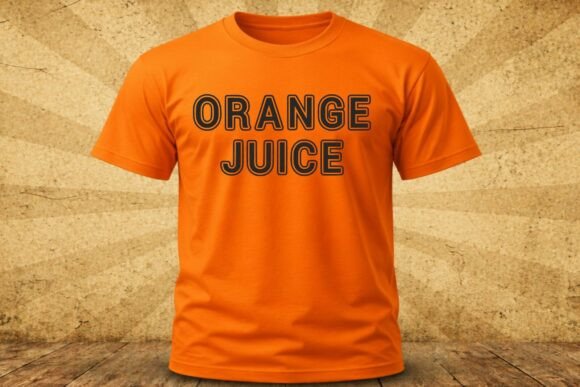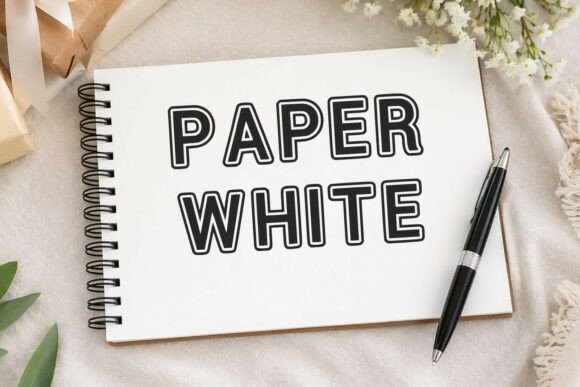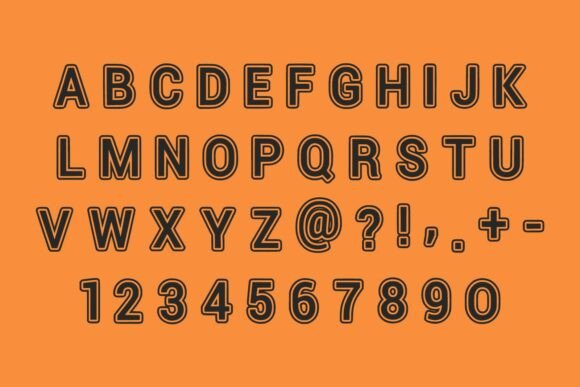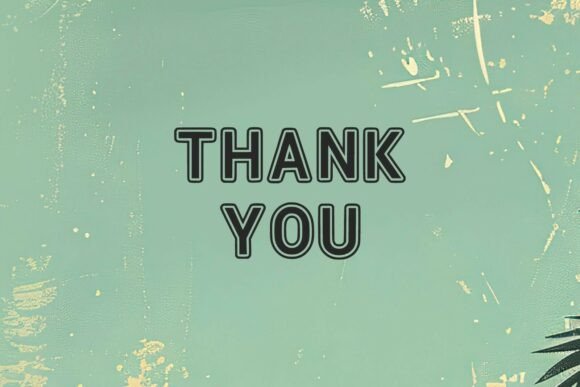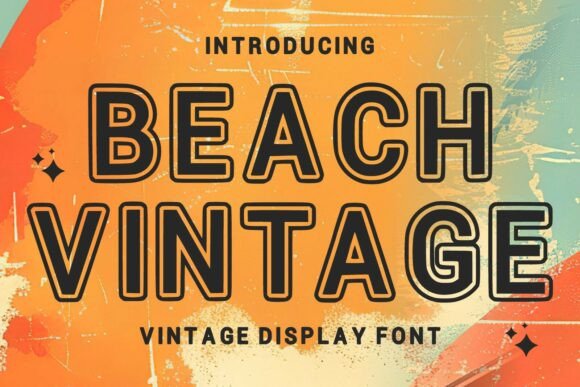
Introducing Beach Vintage Font: Elevate Your Designs with a Retro Twist
Are you looking for a font that adds a touch of nostalgia and sophistication to your designs? Look no further than Beach Vintage Font, a stylish outline display font inspired by retro and vintage typography. With its clean double-line outline style and bold letterforms, this font is perfect for designers and crafters who want to bring a classic yet modern retro feel to their projects.
The Inspiration Behind Beach Vintage Font
Beach Vintage Font is inspired by the iconic typography of the past, with a modern twist. The font’s creator aimed to capture the essence of retro and vintage design, while making it suitable for modern applications. The result is a font that is both nostalgic and fresh, perfect for a wide range of design projects.
Key Features of Beach Vintage Font
• Clean Double-Line Outline Style: The font features a clean and elegant double-line outline style that gives it a distinctive retro look.
• Bold Letterforms: The bold letterforms of Beach Vintage Font make it perfect for headlines and titles that need to stand out.
• Classic yet Modern Retro Feel: The font combines classic and modern elements to create a unique retro feel that is perfect for a wide range of design projects.
Use Cases for Beach Vintage Font
Beach Vintage Font is a versatile font that can be used for a variety of design projects, including:
• Posters: Create eye-catching posters with Beach Vintage Font that will grab the attention of your audience.
• Branding: Use Beach Vintage Font to create a unique and memorable brand identity that stands out from the crowd.
• Logos: Design a logo that is both modern and nostalgic with Beach Vintage Font.
• Packaging: Add a touch of retro charm to your packaging designs with Beach Vintage Font.
• T-Shirt Designs: Create stylish and eye-catching t-shirt designs with Beach Vintage Font.
• Signage: Use Beach Vintage Font to create signs that are both informative and visually appealing.
• Vintage-Themed Projects: Beach Vintage Font is perfect for any project that requires a retro or vintage touch.
Why Choose Beach Vintage Font?
Beach Vintage Font is a great choice for designers and crafters who want to add a touch of nostalgia and sophistication to their designs. Here are some reasons why:
• Unique and Eye-Catching: Beach Vintage Font is a unique and eye-catching font that will make your designs stand out.
• Versatile: The font is versatile and can be used for a wide range of design projects.
• Easy to Read: Despite its bold and retro style, Beach Vintage Font is easy to read, making it perfect for headlines and titles.
Tips for Using Beach Vintage Font
Here are some tips for using Beach Vintage Font effectively in your designs:
• Use it as a Headline Font: Beach Vintage Font is perfect for headlines and titles, so use it to grab the attention of your audience.
• Pair it with a Simple Font: Pair Beach Vintage Font with a simple font to create a striking contrast.
• Experiment with Colors: Beach Vintage Font looks great in a variety of colors, so experiment with different colors to find the one that works best for your design.
Beach Vintage Font is a stylish and versatile font that is perfect for designers and crafters who want to add a touch of nostalgia and sophistication to their designs. With its clean double-line outline style and bold letterforms, this font brings a classic yet modern retro feel to any design. Whether you’re creating posters, branding, logos, packaging, t-shirt designs, signage, or vintage-themed projects, Beach Vintage Font is a great choice.